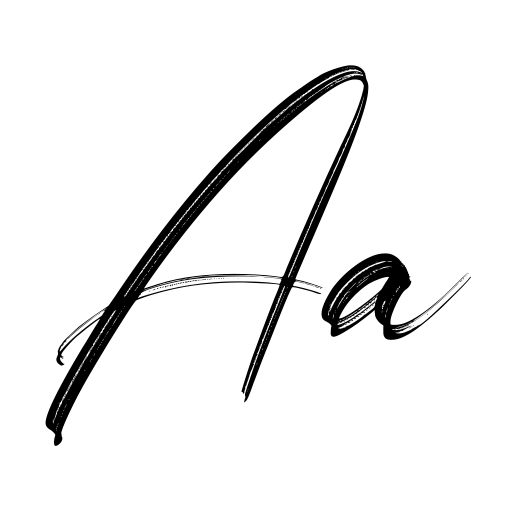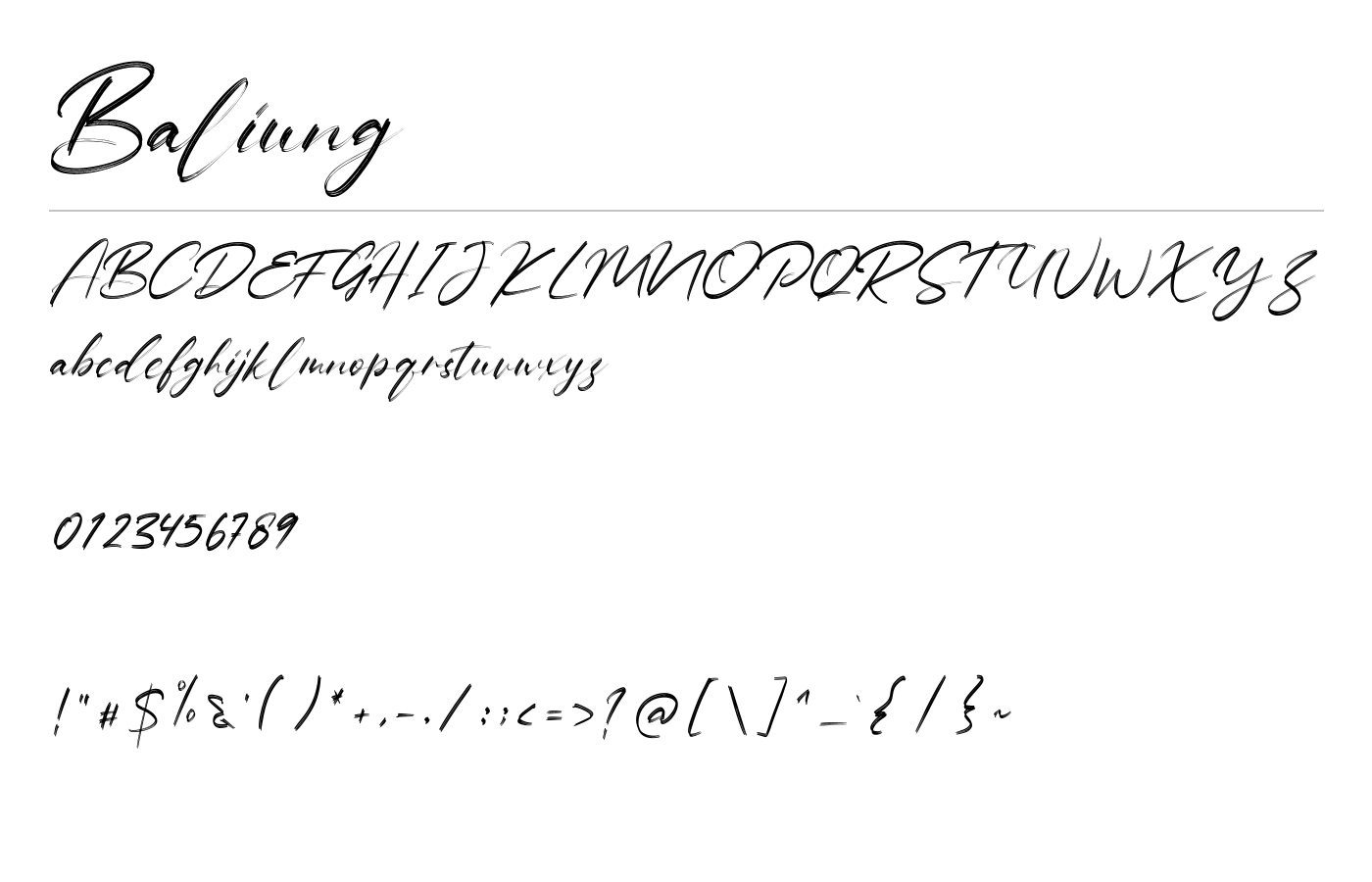
Baliung is a lively and elegant script font characterized by its fluid, hand-drawn strokes that blend bold and fine lines to create a dynamic and stylish look. Its casual yet refined feel makes it perfect for creative branding, invitations, and editorial headlines, adding a personal, artistic touch wherever used. This font shines in designs that seek to convey sophistication with a modern, handwritten flair.
Baliung Font
About Baliung Font
| Font family | Baliung Font |
| Designer | StringLabs |